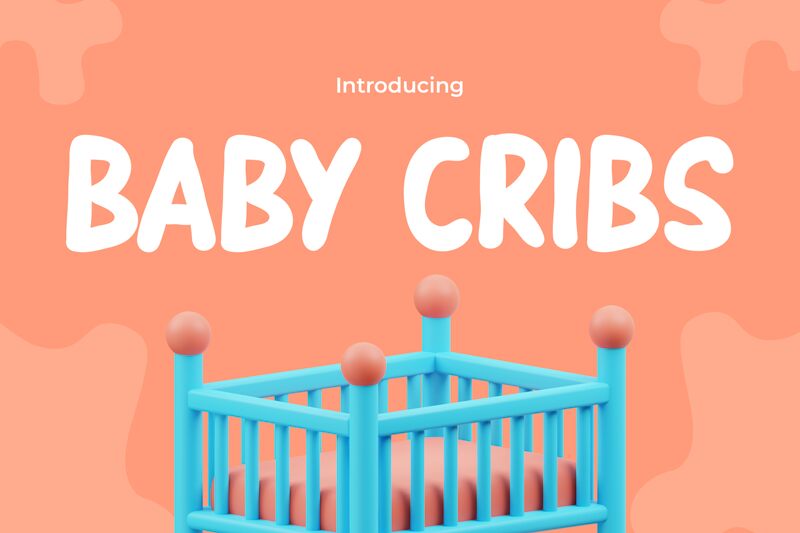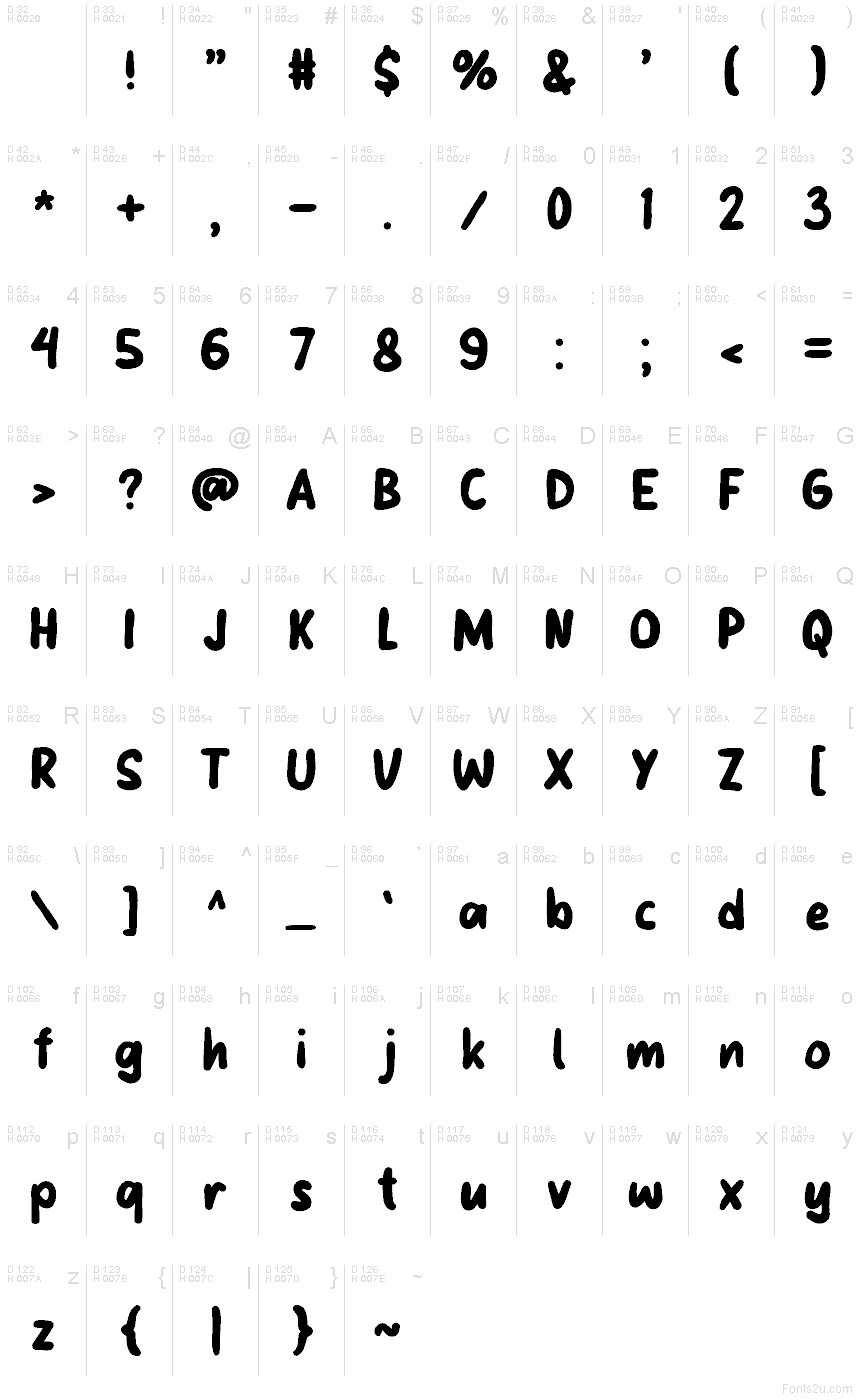
BABY-CRIBS
Baby-Cribs font by Pinisiart is a free bold cartoon display font that speaks in soft, bouncy shapes. Its chunky strokes, rounded corners, and gently wobbly rhythm feel like marker lines on glossy cardstock—playful, approachable, and easy to read at a glance. Built for charming first impressions, it brings a friendly hug to headlines without losing clarity.
Using Baby-Cribs, you’ll nail nursery logos, baby shower invites, toy packaging, preschool signage, birthday posters, stickers, and kid-focused social posts. The wide forms and steady weight create instant impact, while the cushy curves keep the tone sweet and welcoming. This free font shines on larger sizes; for details or body copy, pair it with a clean rounded sans and add a touch of extra tracking.